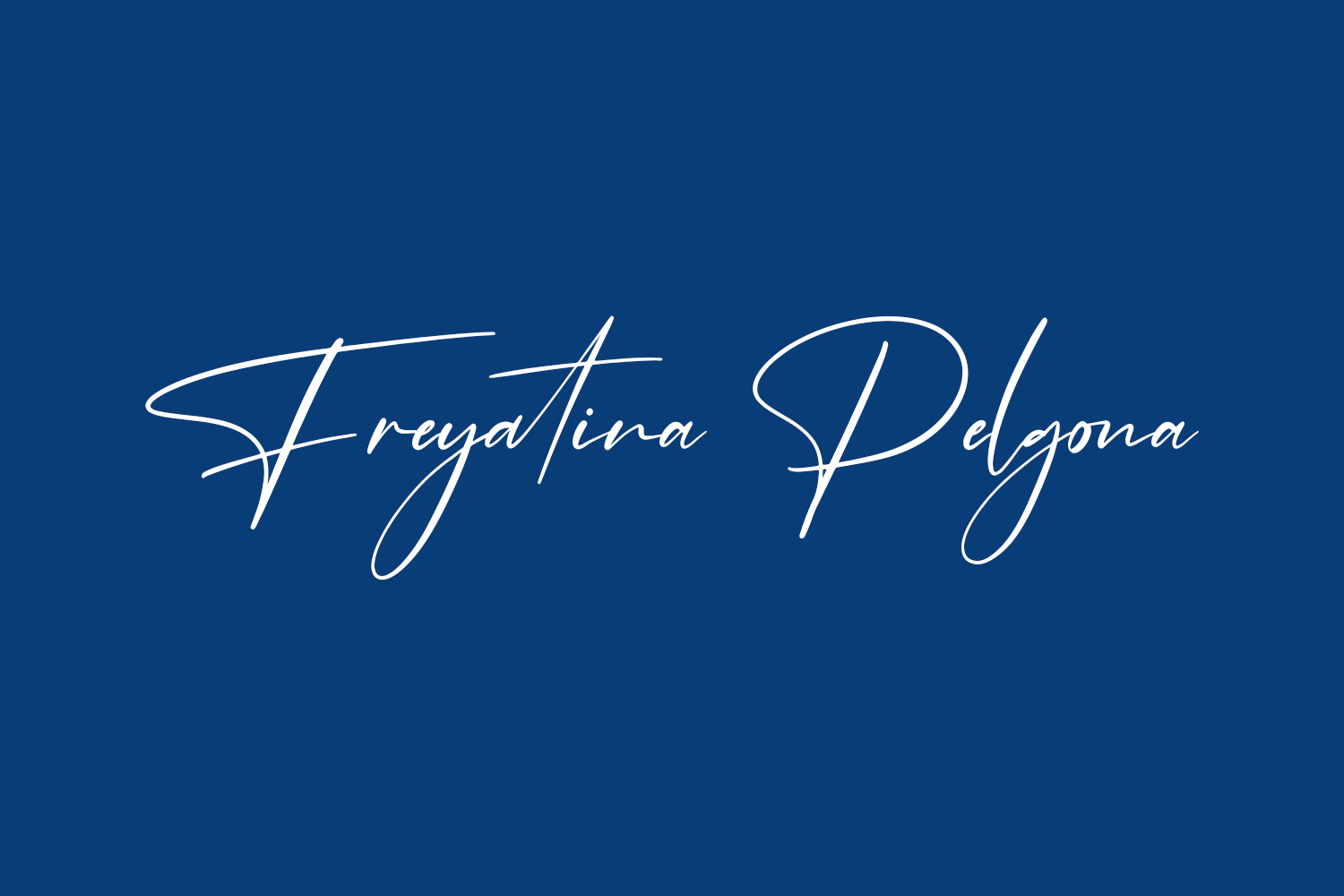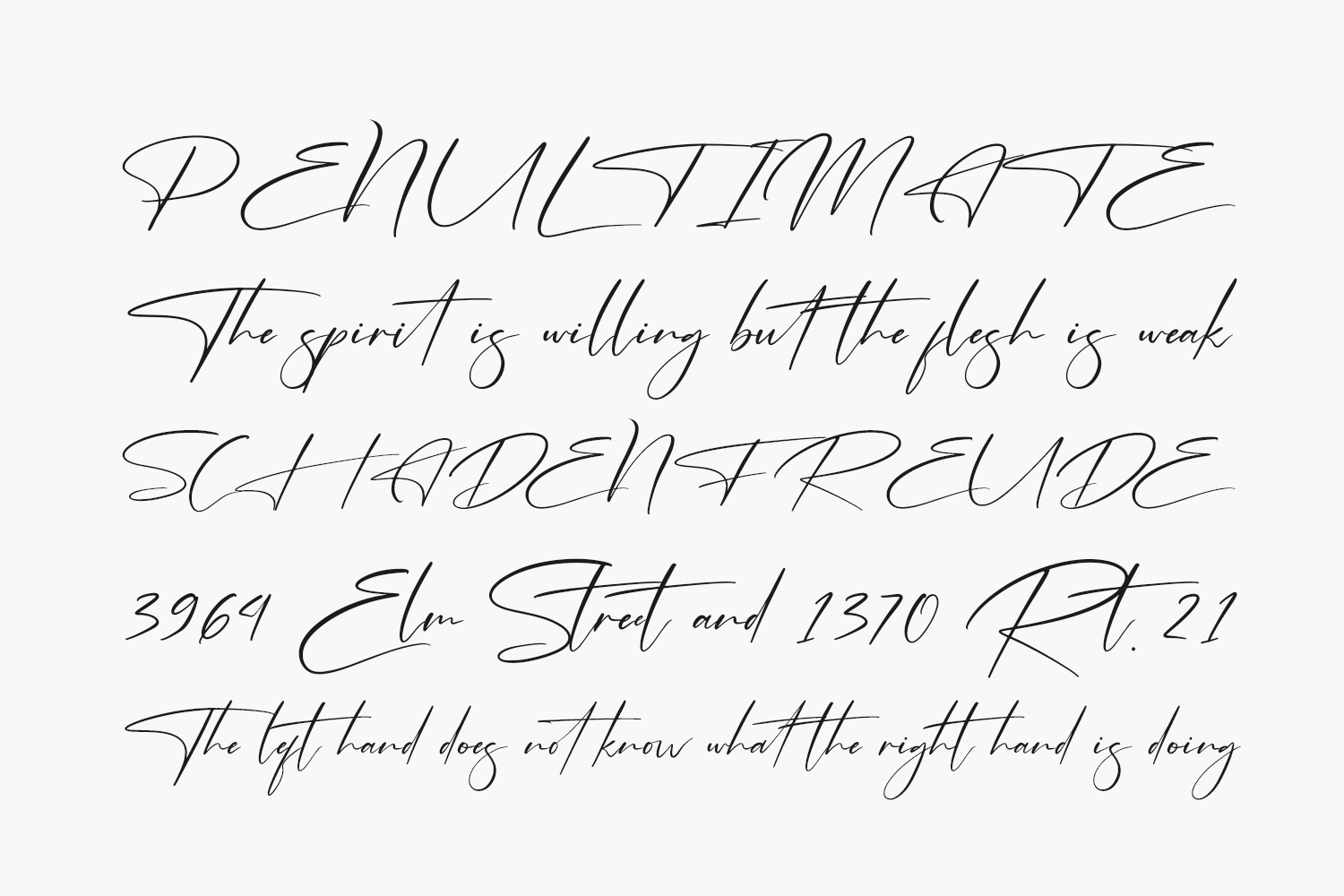
Freyatina Pelgona Free Font Family is a thin lettered, beautiful and luxurious handwritten font. Freyatina Pelgona Free Font Family was designed by Perspectype Studio and is free for personal use only. Please purchase the full version for commercial use.